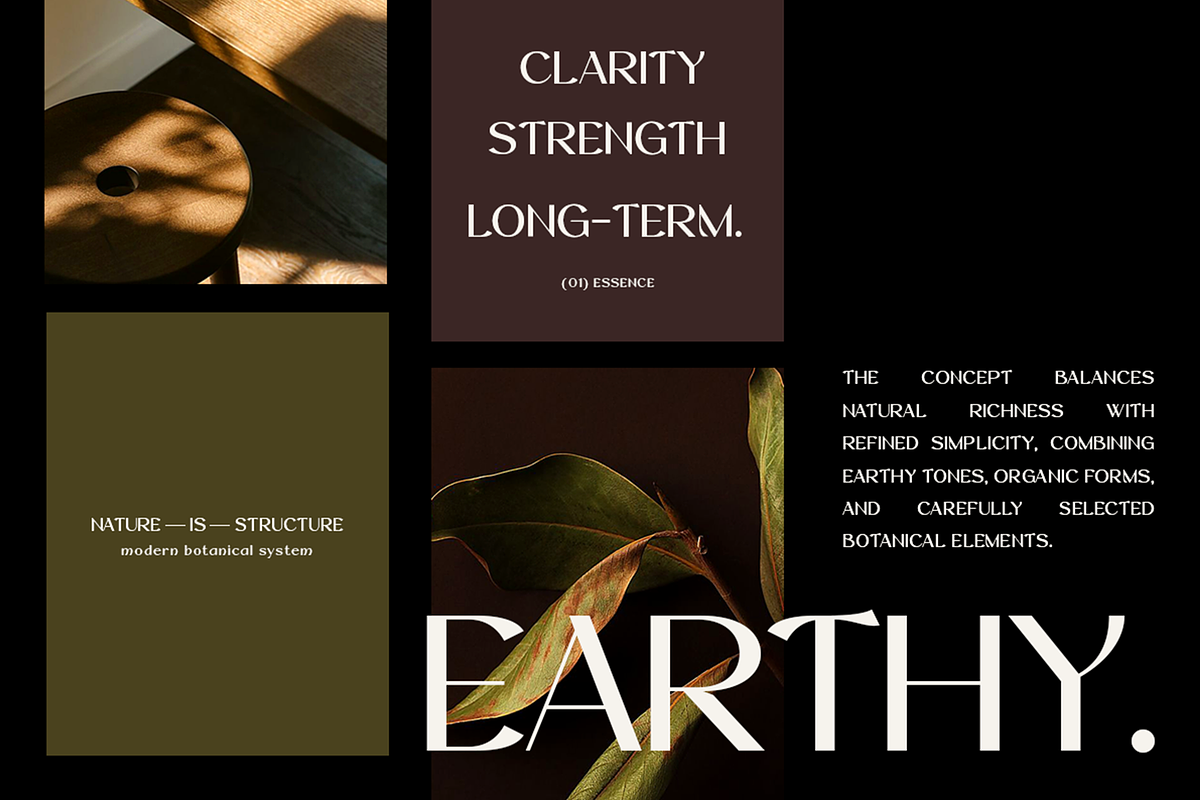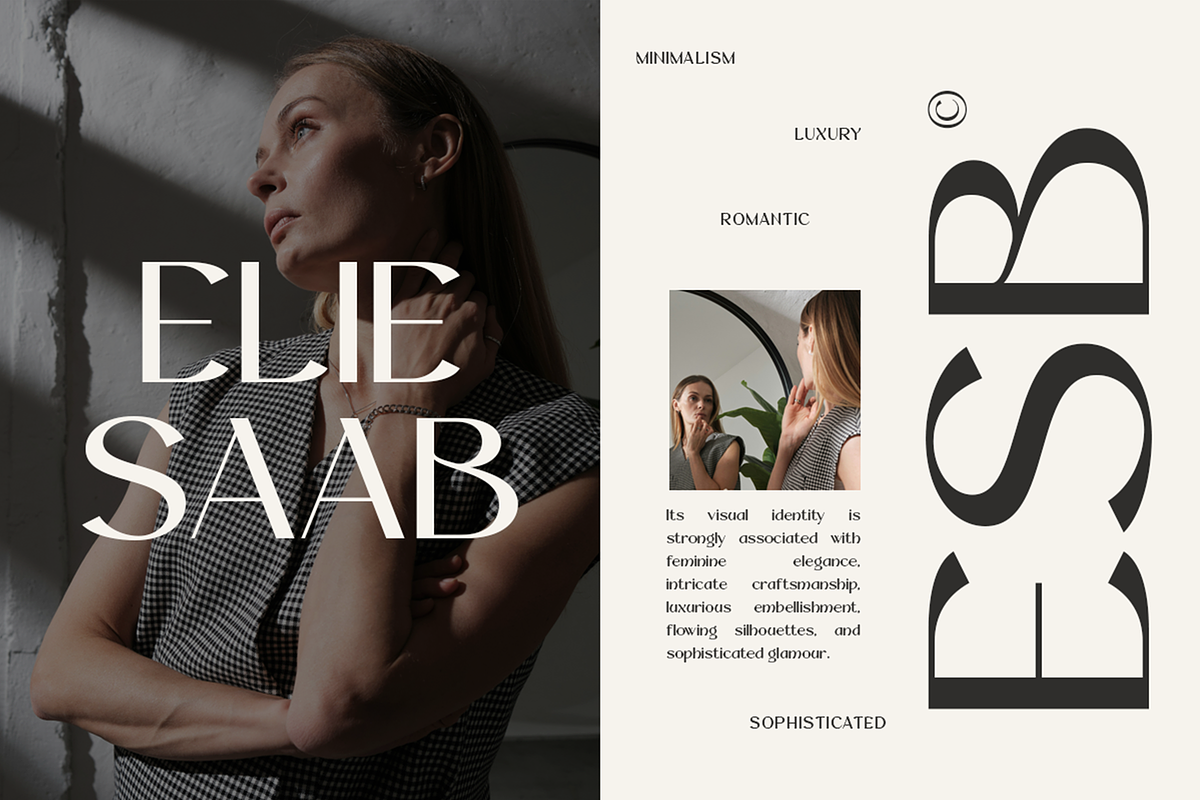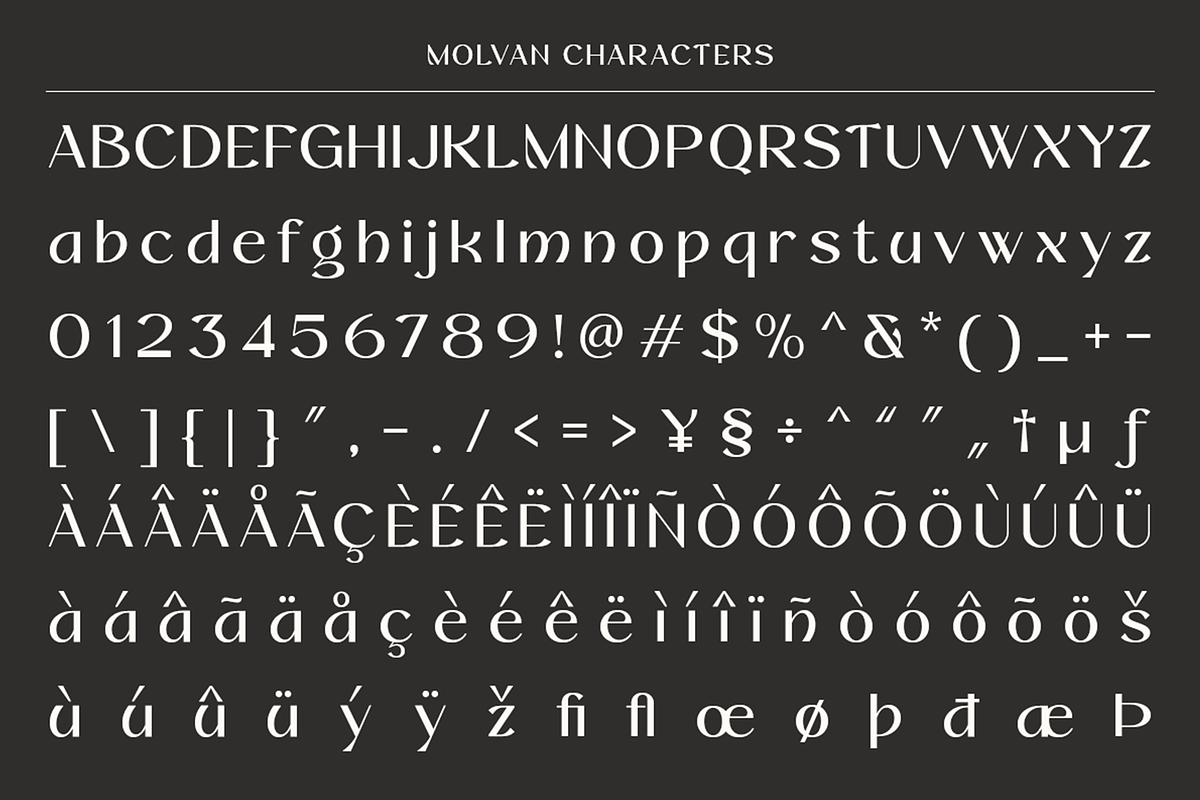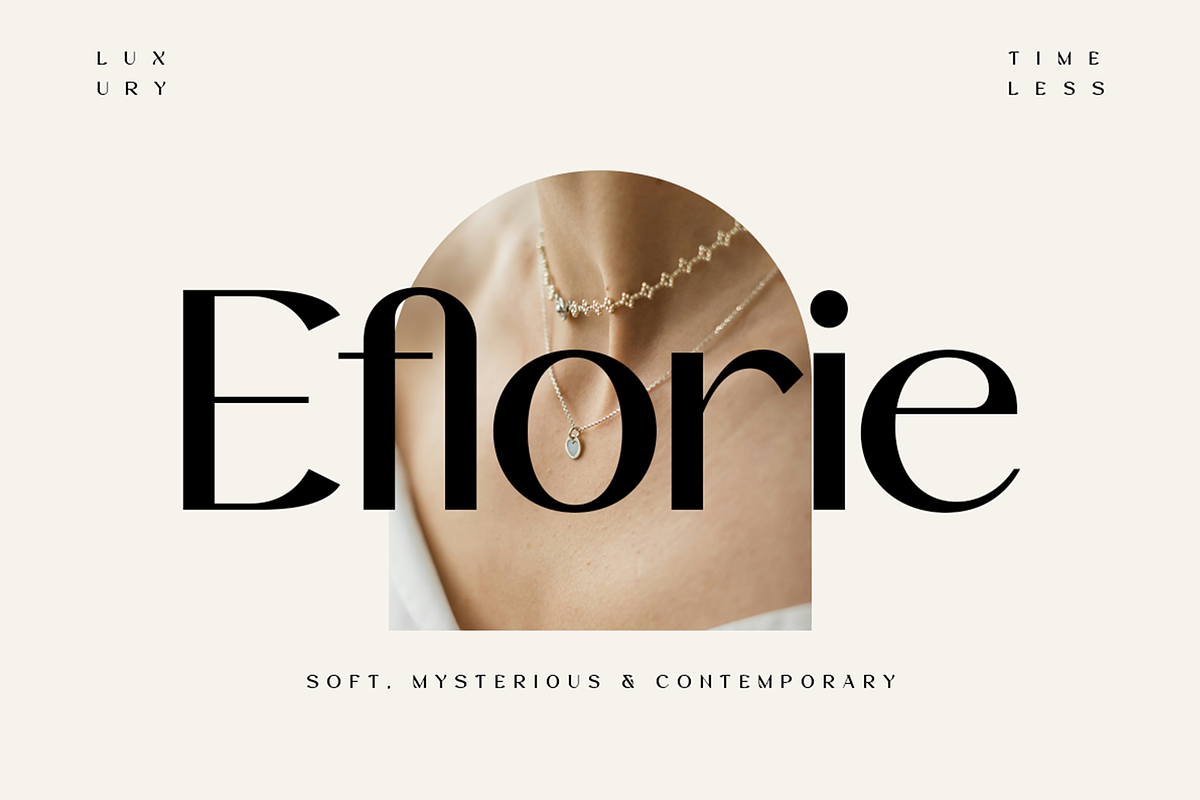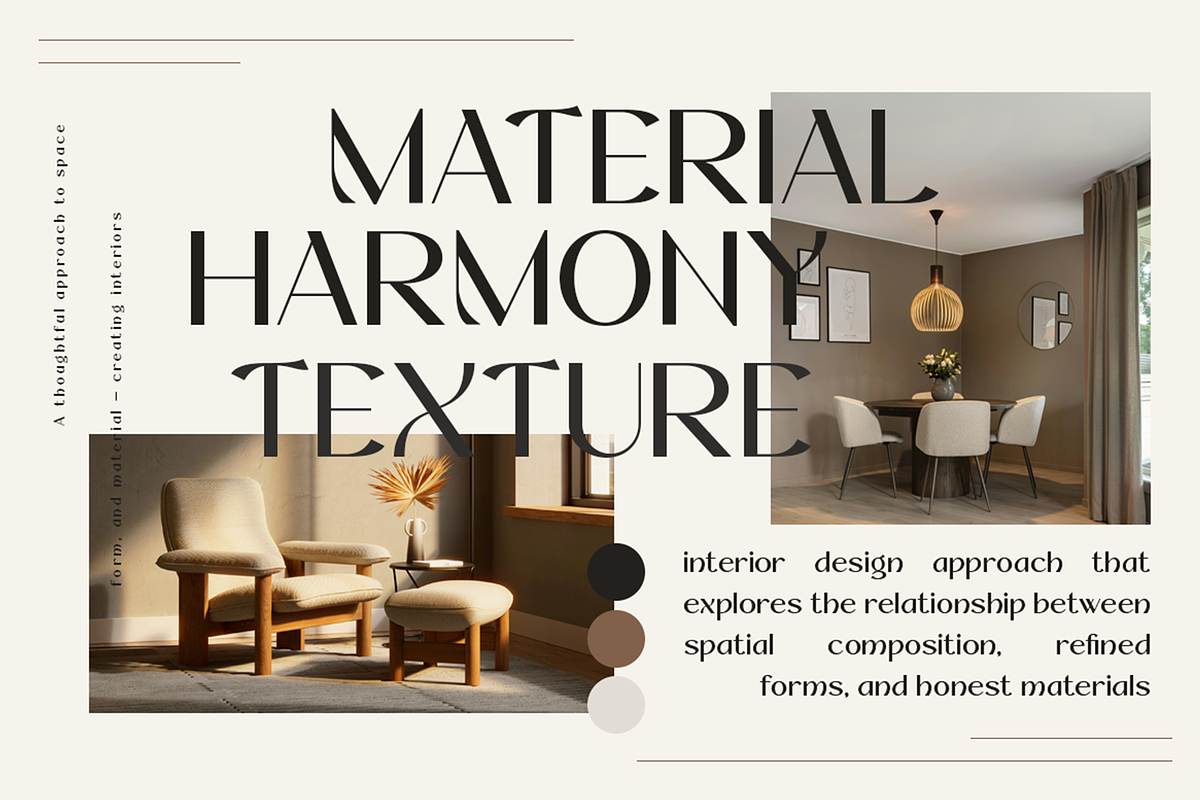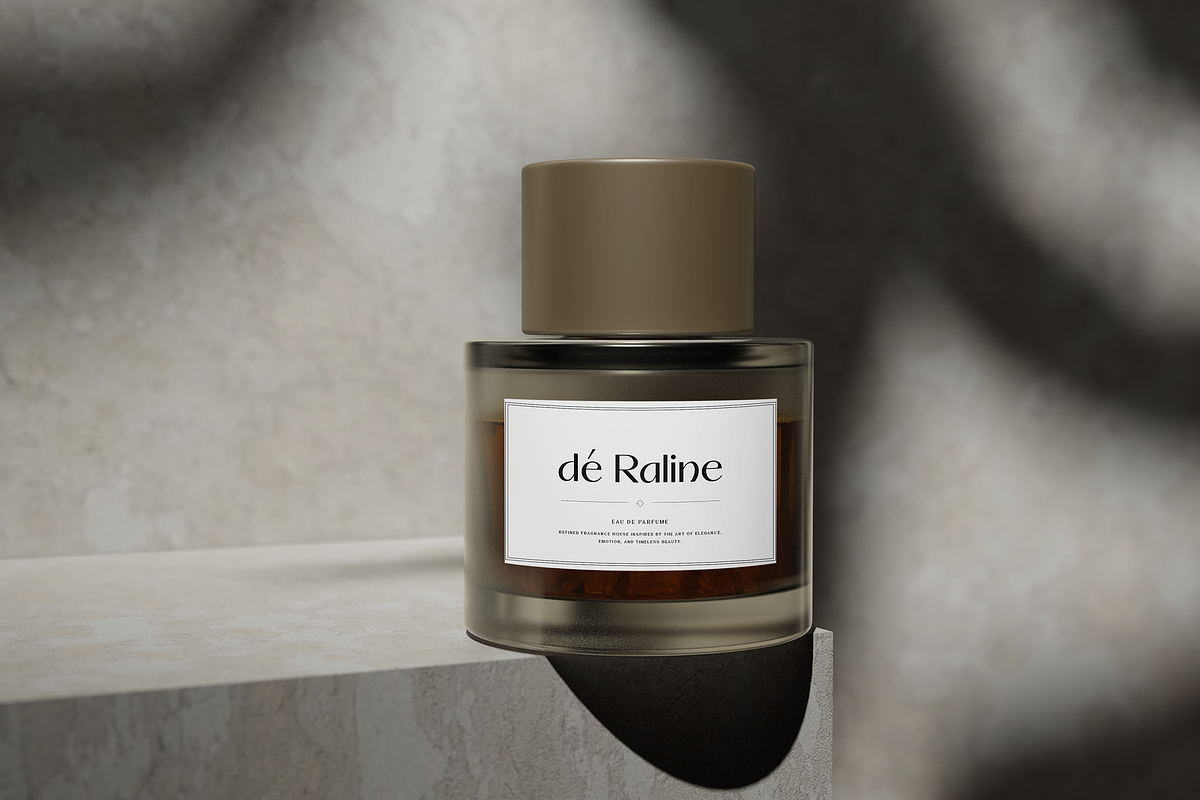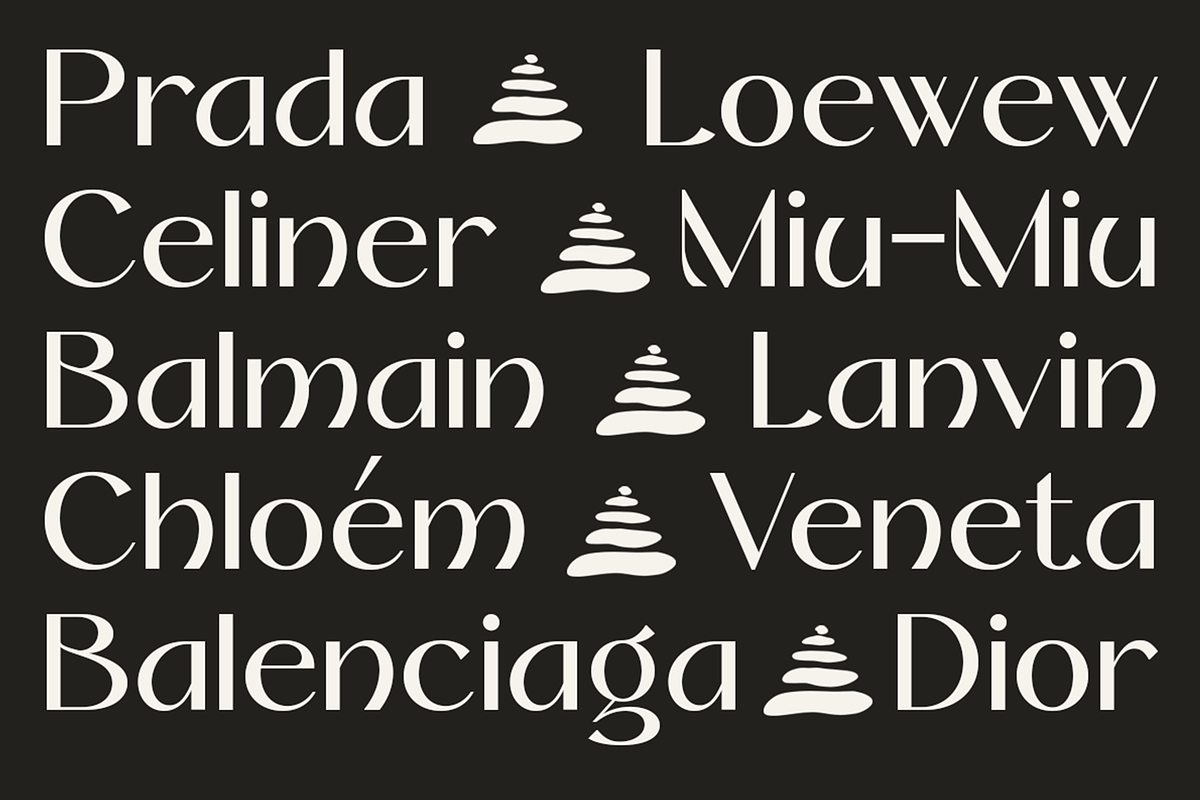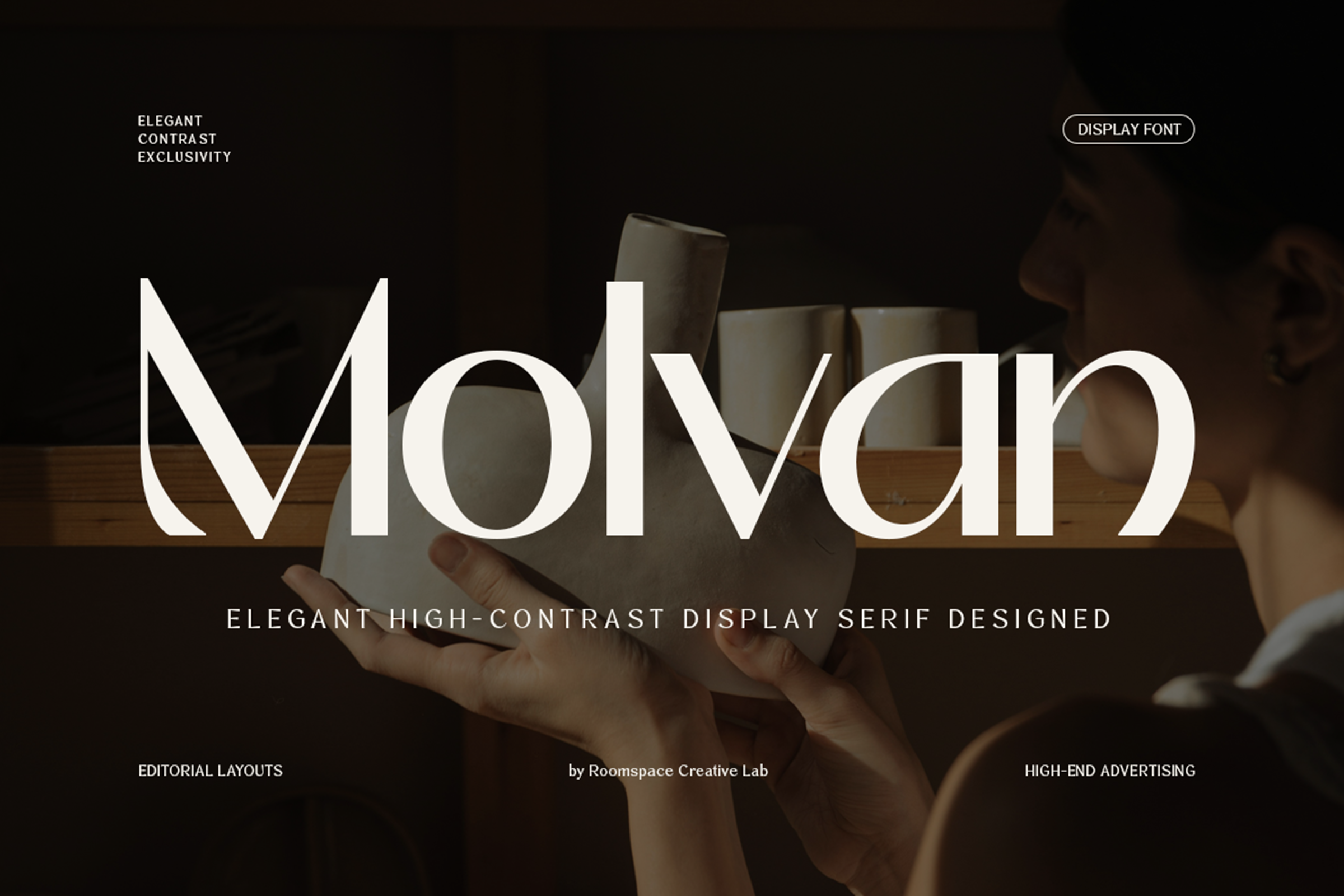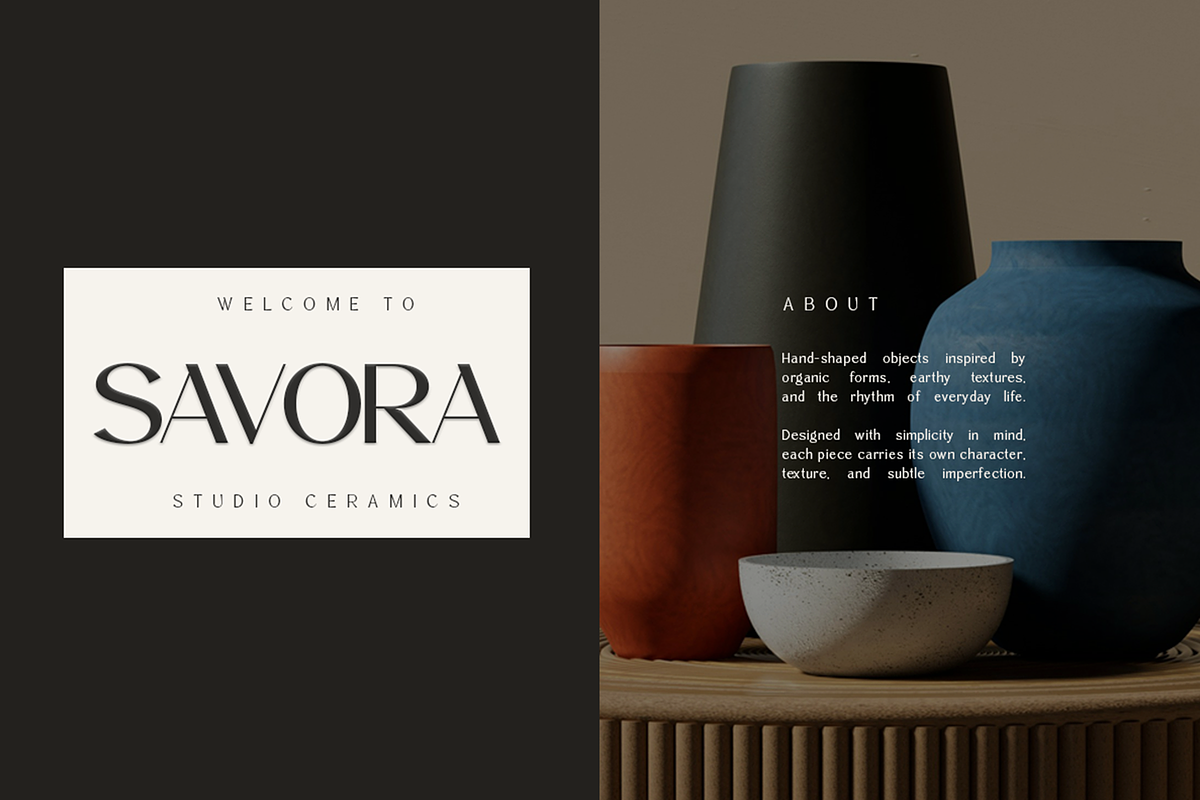
Molvan - Editorial Serif Font
Molvan is a contemporary high-contrast serif font designed with refined proportions, dramatic stroke contrast, elegant curves, and distinctive editorial letterforms. Its combination of bold thick strokes and delicate hairlines creates a sophisticated visual character that works well for both large display typography and expressive branding applications.
Molvan is suitable for fashion branding, beauty and cosmetic identities, editorial layouts, magazine covers, luxury packaging, perfume labels, jewelry branding, advertising campaigns, posters, invitations, logotypes, and modern visual identity projects. Its distinctive serif details help create strong headlines, elegant wordmarks, and memorable typography compositions.
The font includes uppercase letters, lowercase letters, numerals, punctuation, symbols, and accented characters as shown in the character preview. The extended character selection makes Molvan suitable for a variety of contemporary design projects requiring an elegant and expressive serif style.